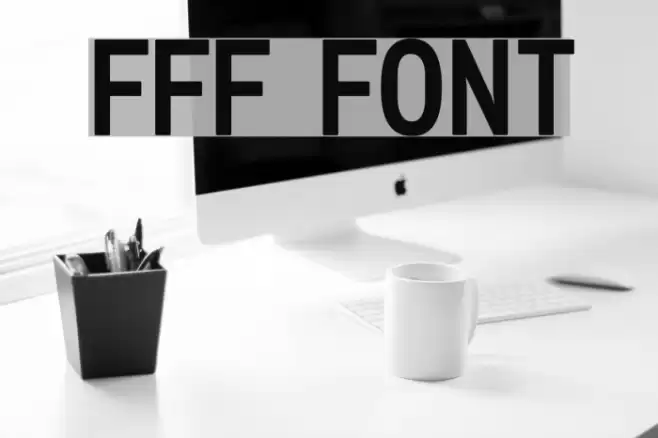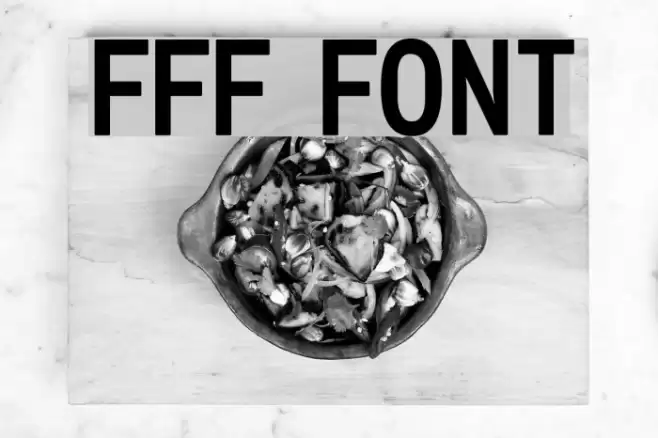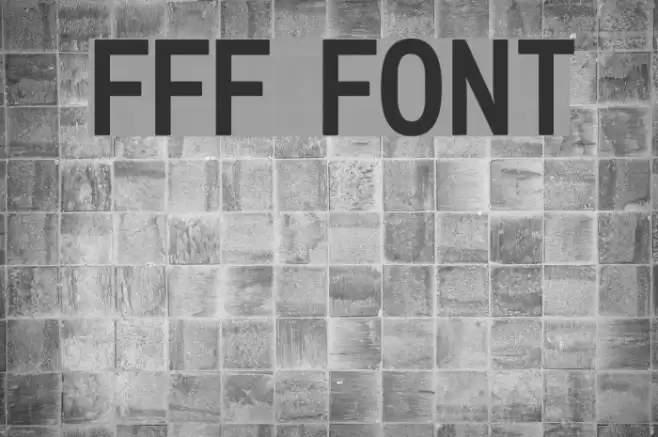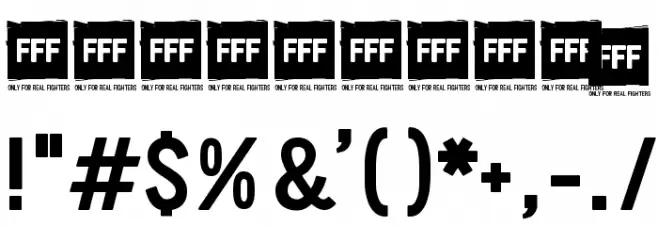
FFF Font
FFF Description
This font features a bold and modern sans-serif style with clean, straight lines and uniform stroke widths. The uppercase letters are prominent and assertive, making a strong visual impact. The lowercase letters maintain the same boldness, ensuring consistency across different text sizes. The numerals are clear and easily distinguishable, while the special characters are designed to complement the overall aesthetic. The font's simplicity and clarity make it highly legible, suitable for various design applications.
A bold, modern sans-serif font with clean lines and strong visual impact from Uncategorized fonts.
- Proposed Projects: Ideal for branding, advertising, headlines, posters, and digital media where a strong, modern presence is required.